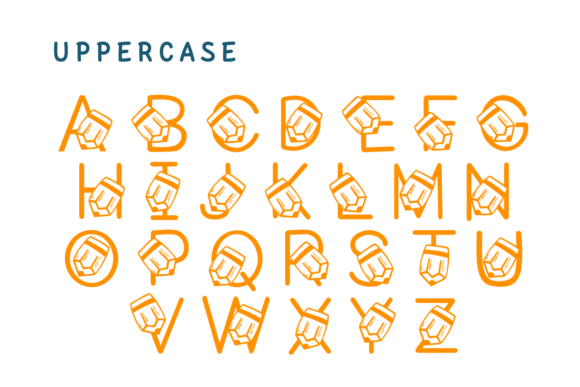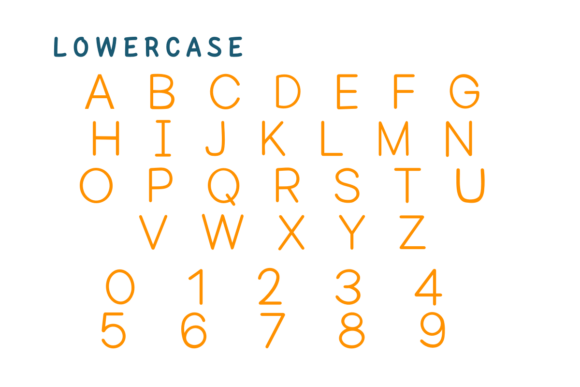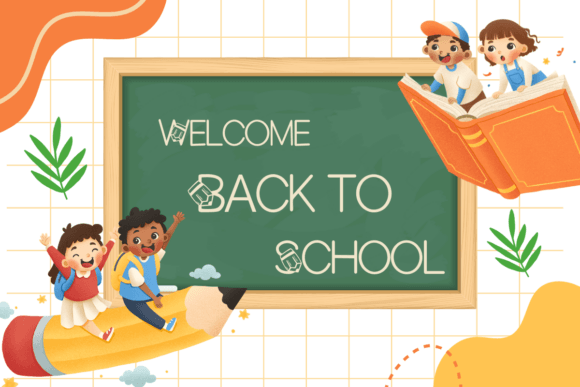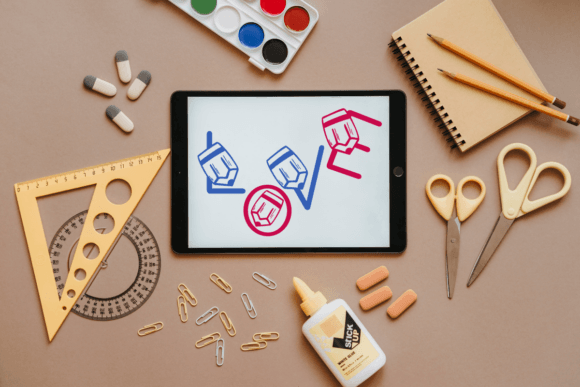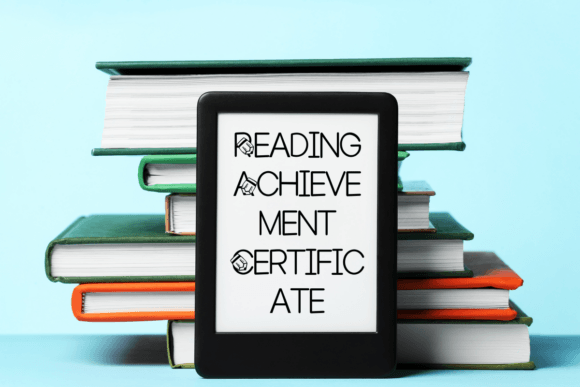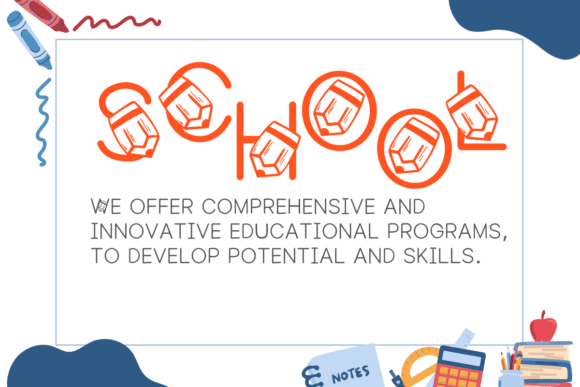
Introduction to Pencil School Font
Remember the thrill of creating artwork with a freshly sharpened pencil as a child? The way the soft lead glided across the paper, leaving behind a trail of possibilities? For designers, finding the perfect font can evoke a similar sense of excitement and creativity. One such font that’s sure to bring a smile to your face is the Pencil School Font.
This charming, decorative font turns each letter into a unique pencil-inspired design, making it a design resource that’s hard to resist. Whether you’re working on a creative project, crafting a classroom poster, or designing educational branding, the Pencil School Font is a valuable addition to your toolkit.
Pencil School Font
- Unique, handwritten font design ideal for creative projects and educational materials.
- High-quality design with a transparent background, perfect for use on white or light-colored backgrounds.
Honest Review: Pencil School Font
I recently had the chance to experiment with the Pencil School Font, a popular design resource for creatives. Overall, my experience was quite positive, and I’m excited to share my thoughts with you.
- The Pencil School Font features a beautiful, high-quality design that’s perfect for a variety of creative projects.
- The font is incredibly versatile, suitable for both digital and print projects.
- The font family includes a range of weights, from light to bold, making it easy to customize your design.
- One potential drawback is the limited number of font styles available, which may not be suitable for complex design projects.
- The transparent background option can sometimes be tricky to use, especially for beginners.
Despite these limitations, I’m impressed with the Pencil School Font and would definitely recommend it for most creative projects. Its high-quality design, versatility, and free download make it a valuable addition to any designer’s toolkit.
Pencil School Font
Tips for Getting the Most Out of Pencil School Font
To get the most out of Pencil School Font, use it in conjunction with other design elements, such as images and graphics. You can also experiment with different font sizes and colors to create a unique look.
Pencil School Font is ideal for a variety of creative projects, including social media graphics, presentations, and illustrations. It’s also a great choice for designers who want to create a unique, hand-drawn look without the hassle of creating custom graphics from scratch.